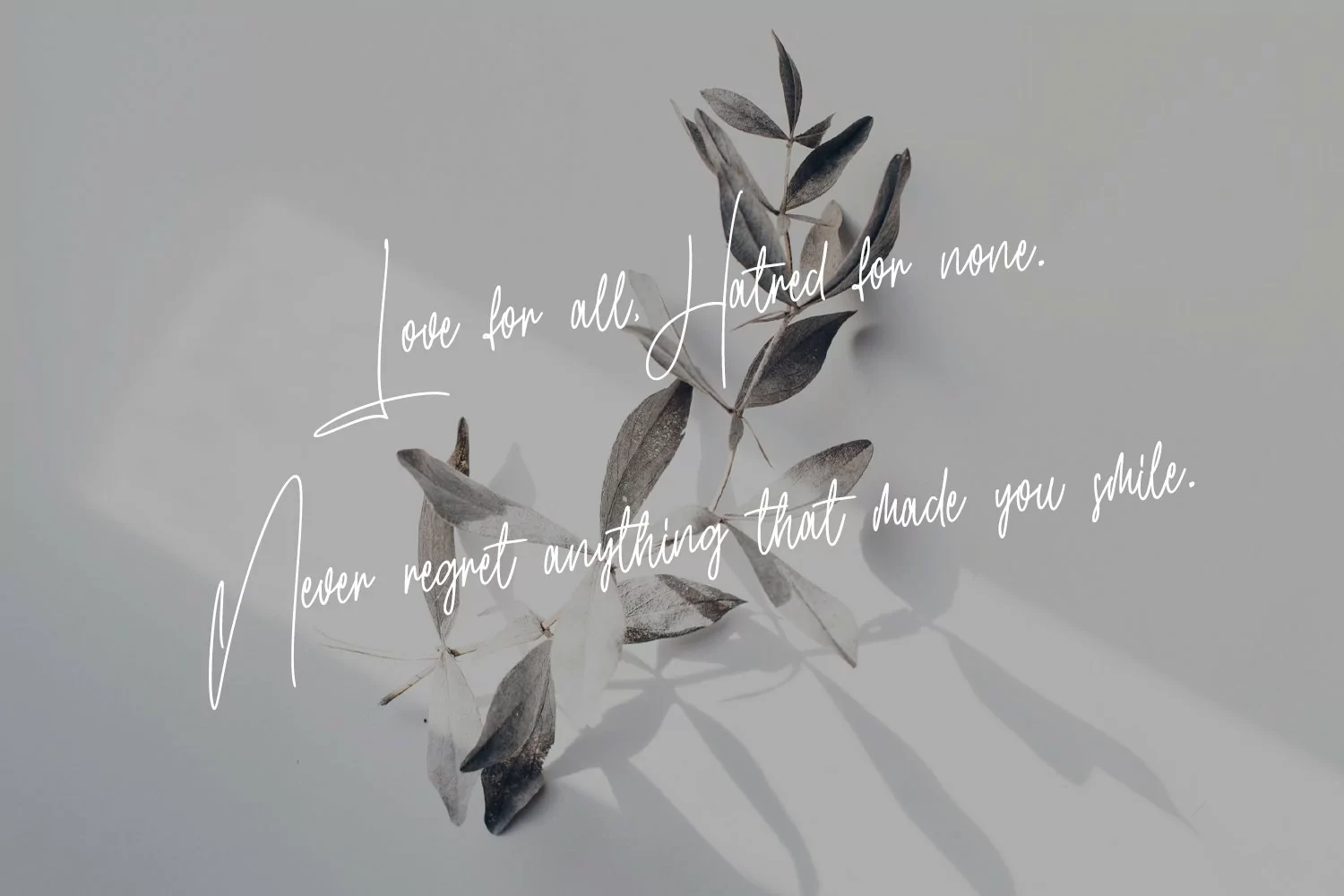
Gilly Fleurs Signature is casual signature font, with clean thin mono-line stroke, slanted, condensed and fun character. It has Opentype features ligatures of character and lowercase alternates, To give you an extra creative work. Gilly fleurs font support multilingual more than 100+ language. This font is good for logo design, Social media, Movie Titles, Books Titles, a short text even a long text letter and good for your secondary text font with sans or serif. Make a stunning work with Gilly Fleurs Signature font.